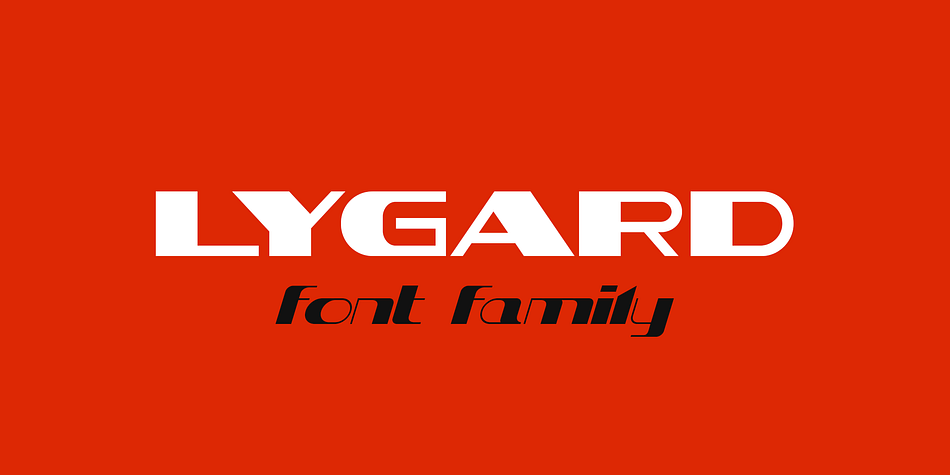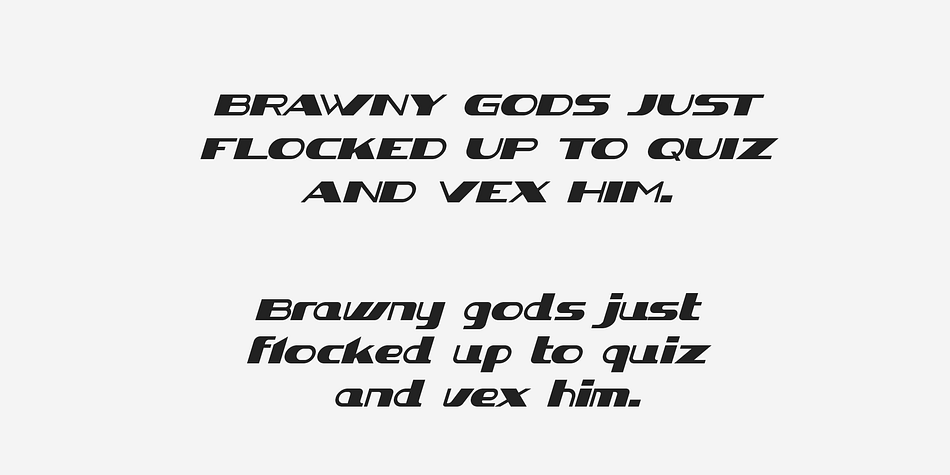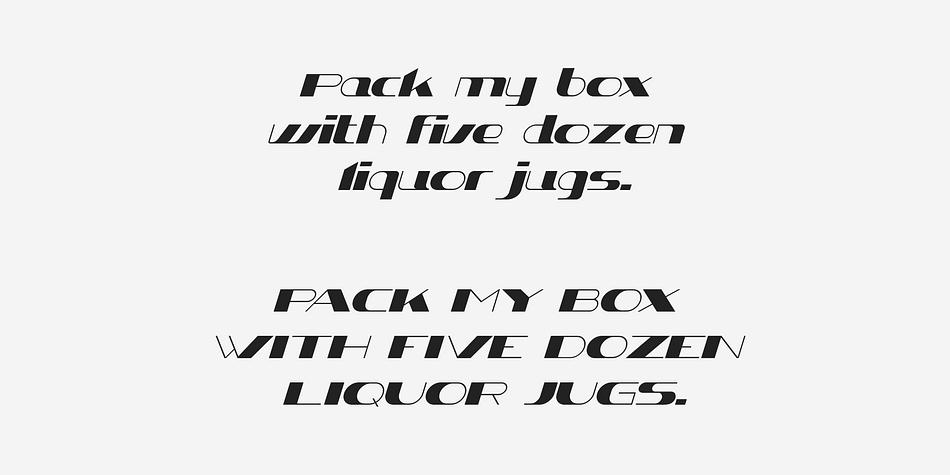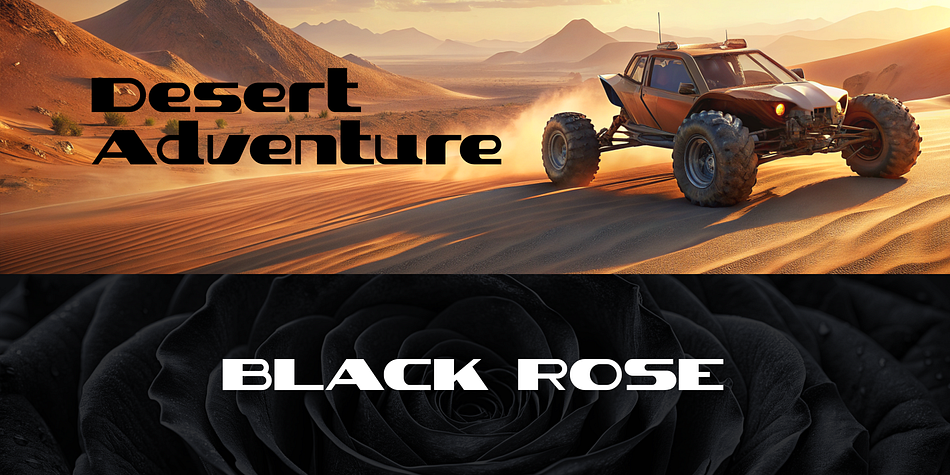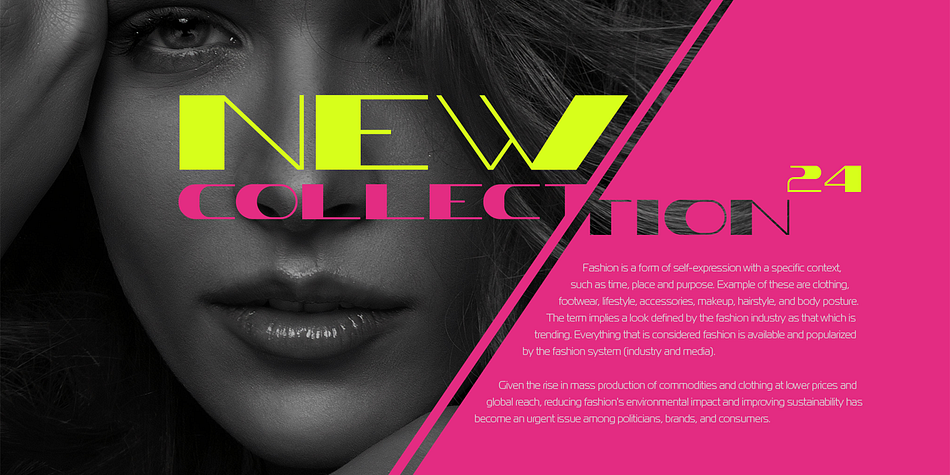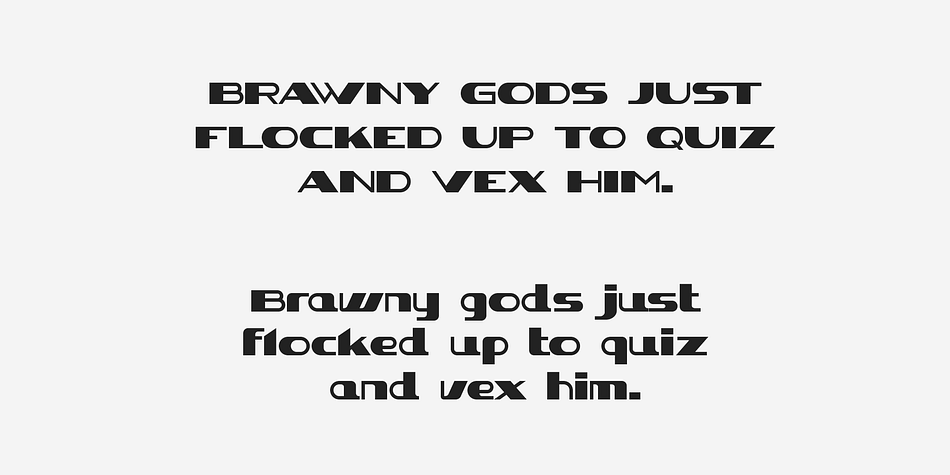
Lygard
Lygard is a display sans font family. This typeface has four styles and was published by Sentavio.
LYGARD is modern stylish font good looking as header and text both.
Multilingual Latin symbols are included.